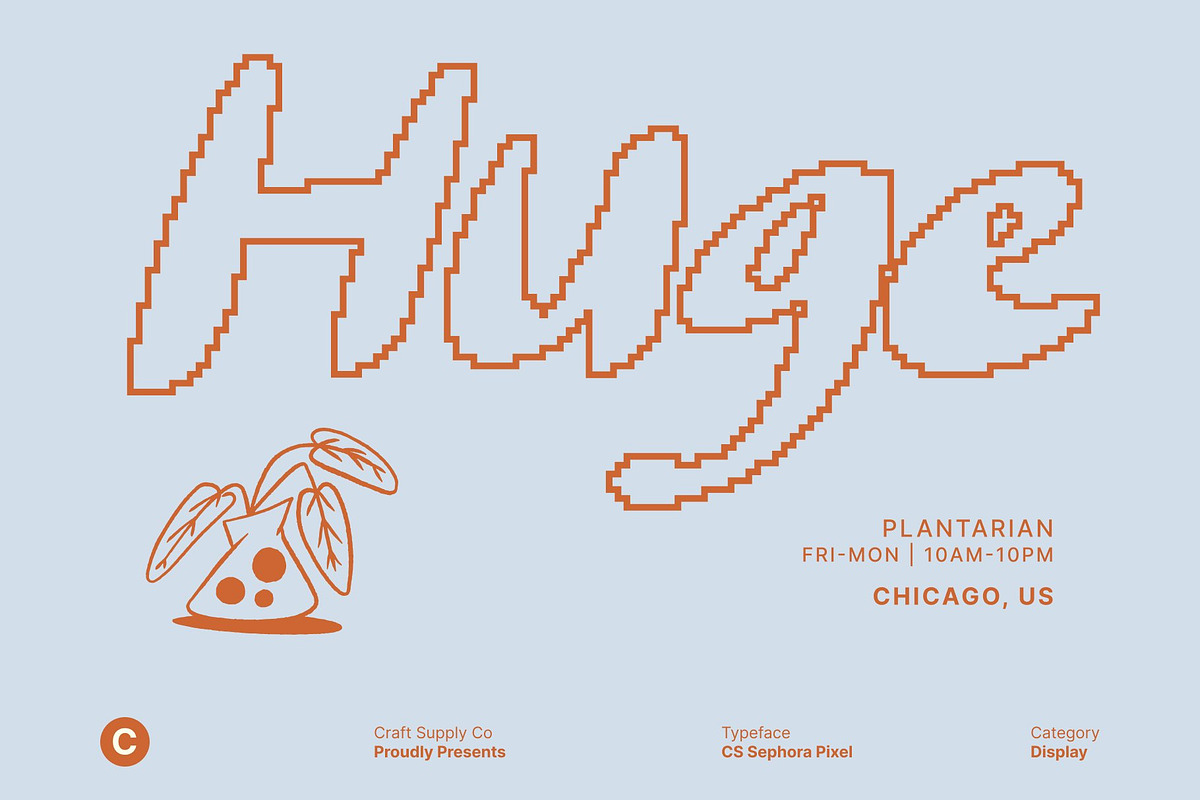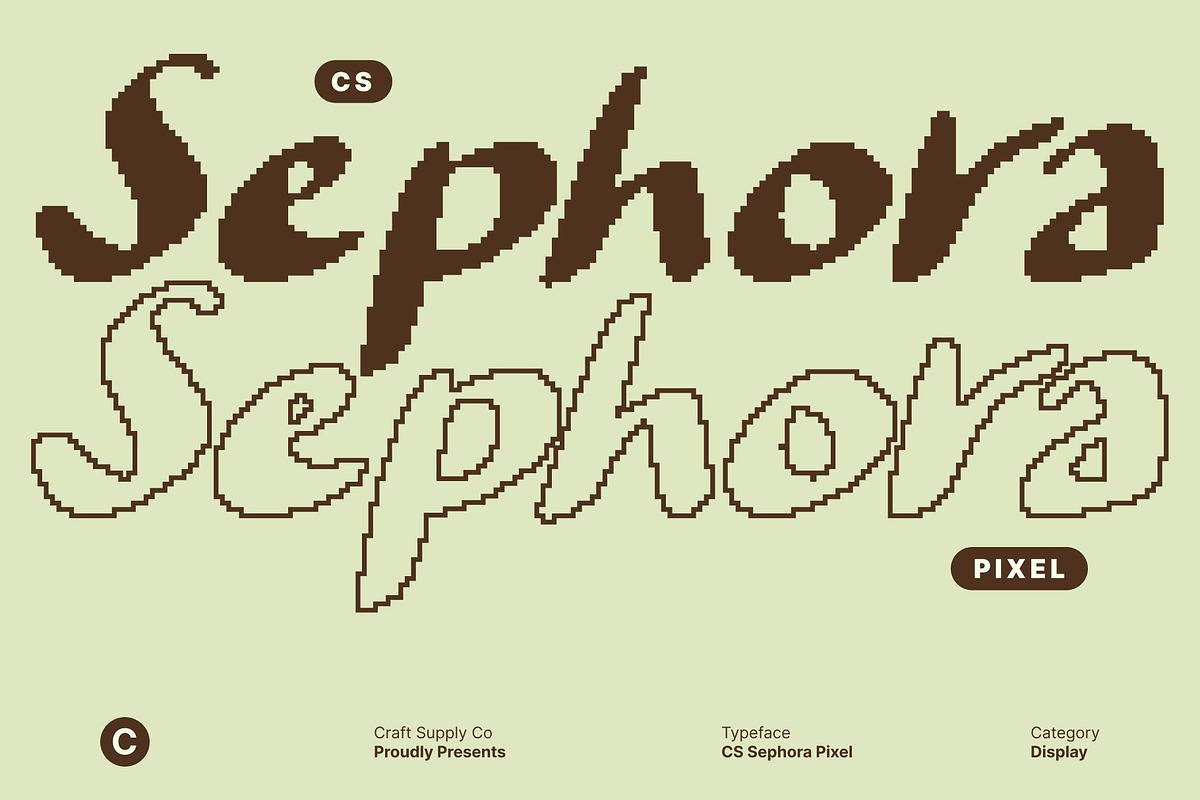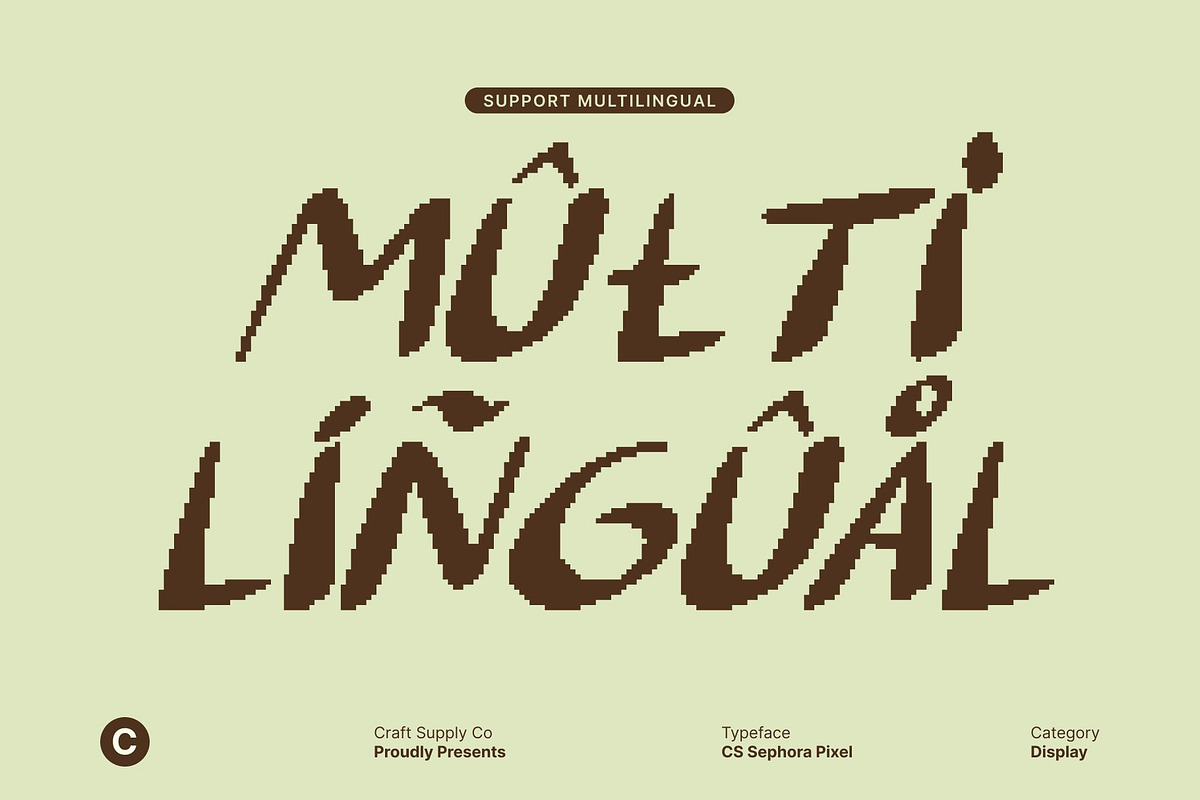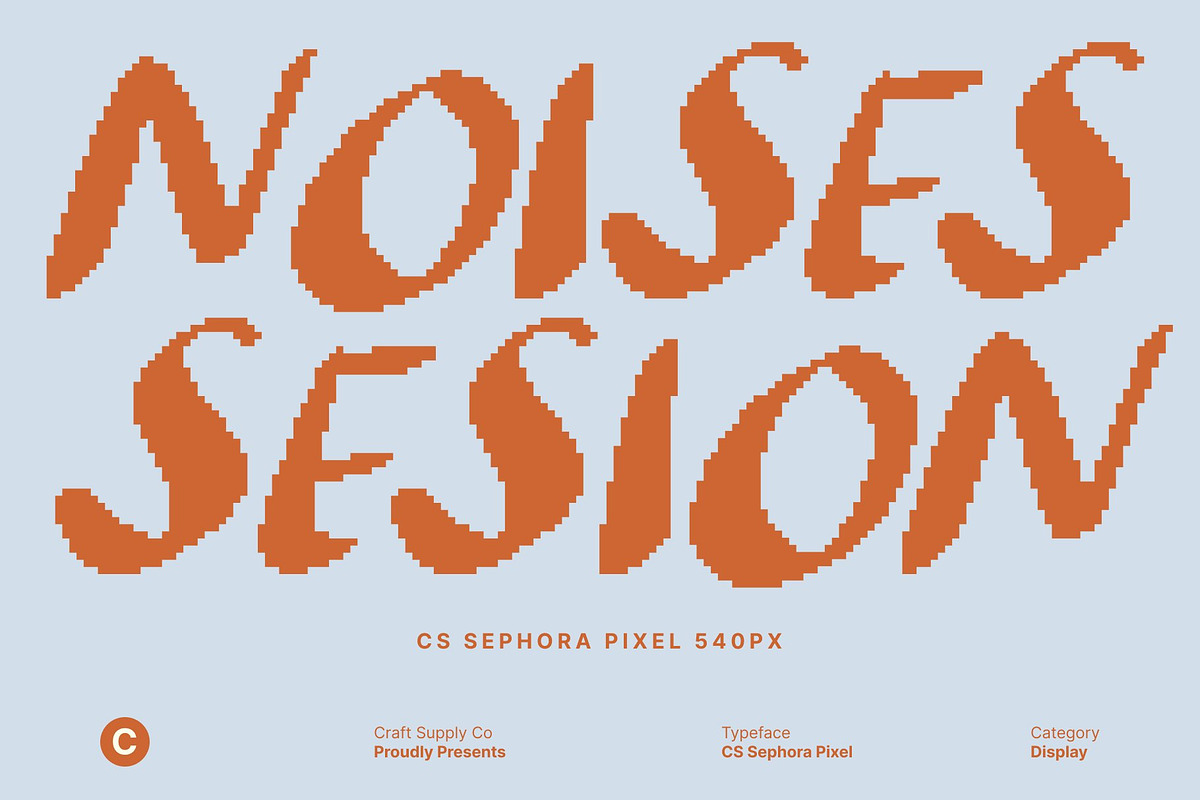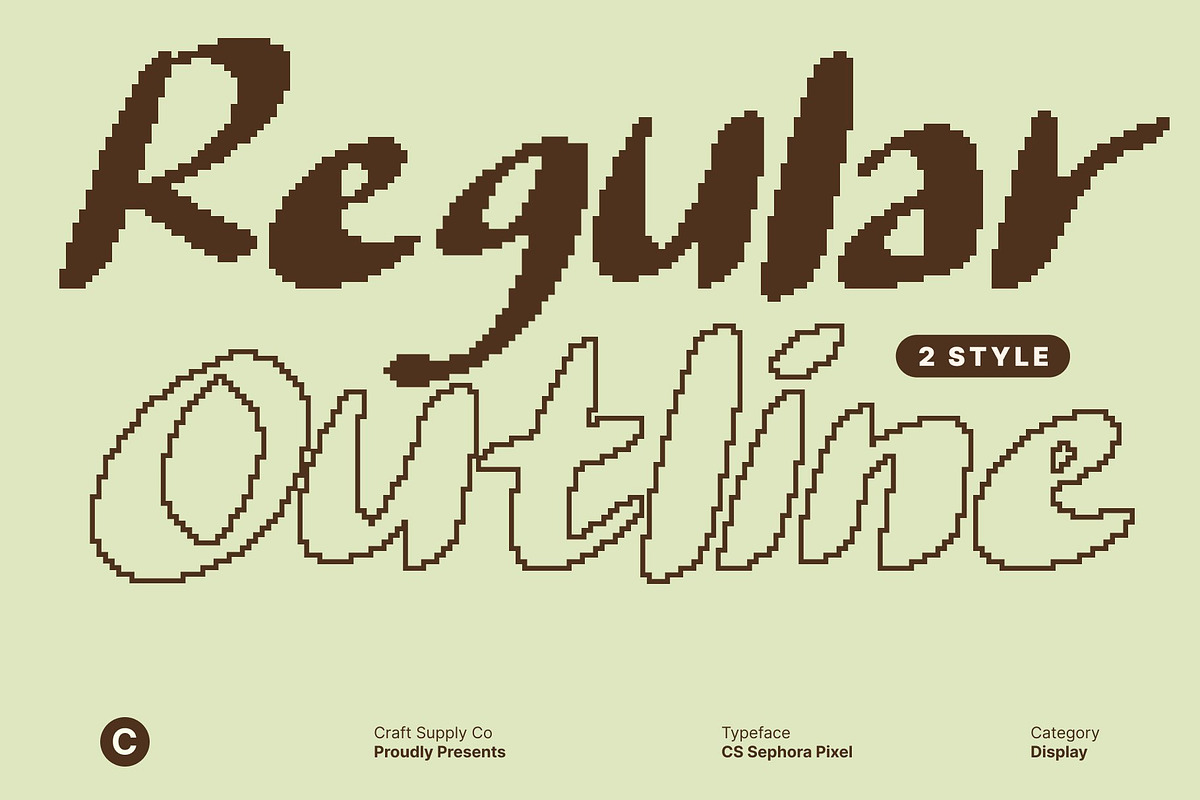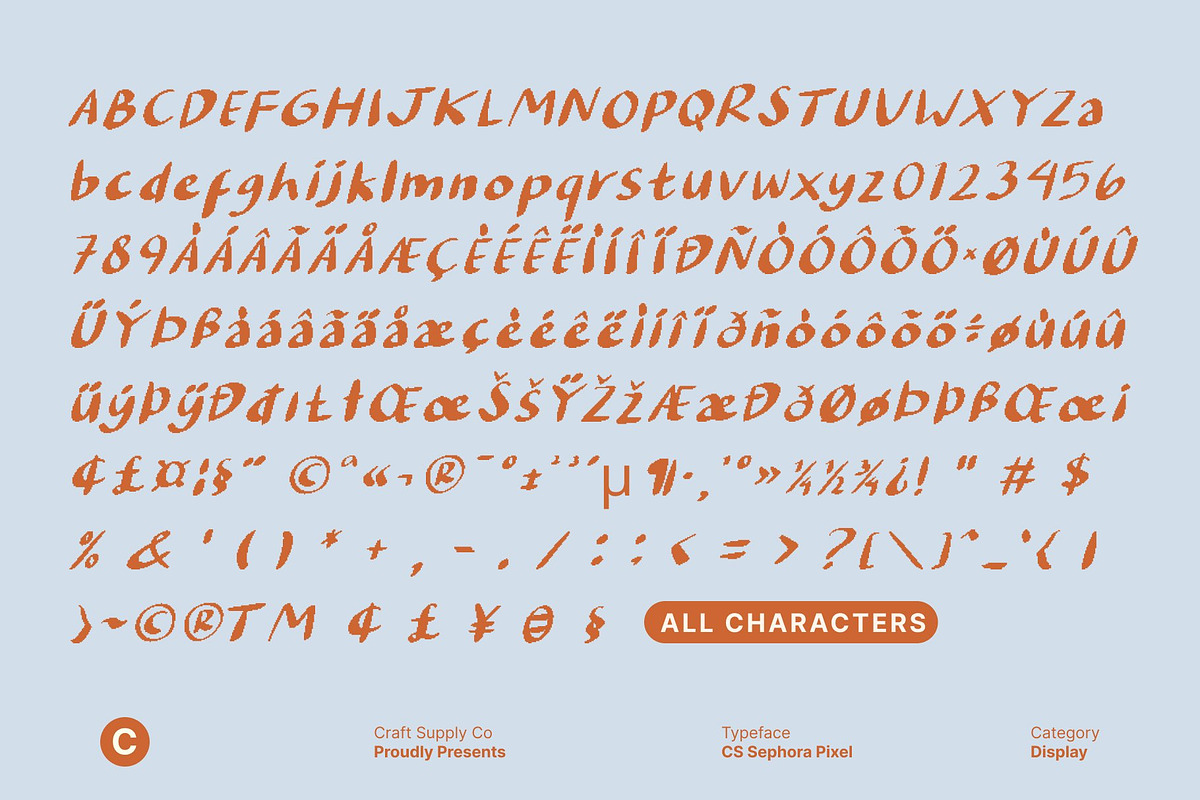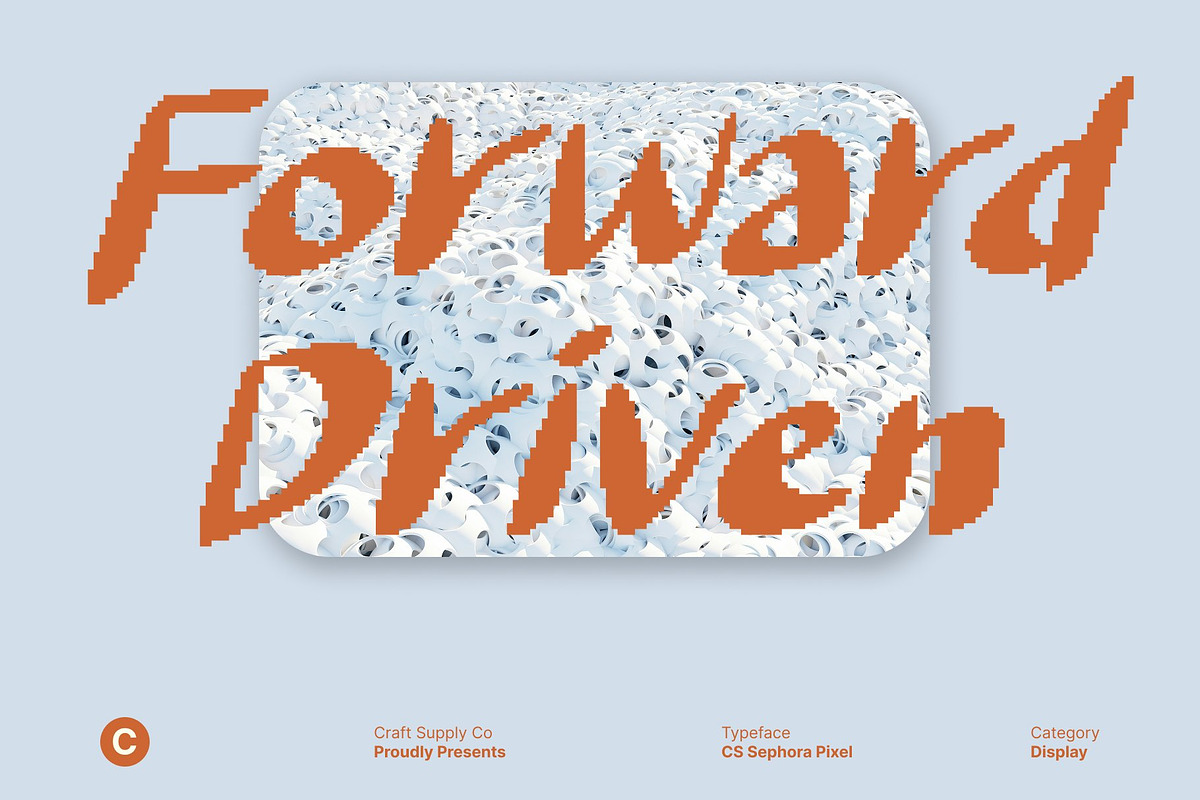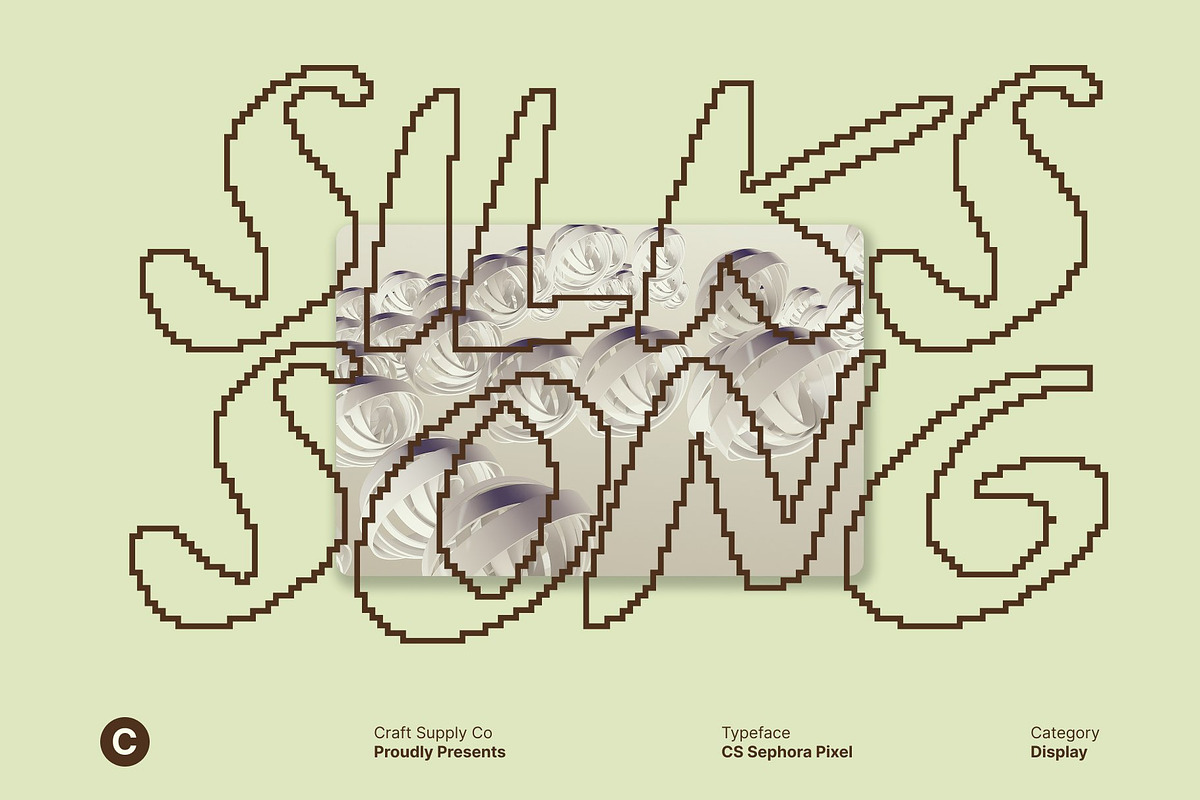
CS Sephora Pixel
CS Sephora Pixel – Bold Marker Energy in Retro Digital Form
Handcrafted Marker Style Meets Pixel Precision This transforms expressive handwritten marker strokes into a bold pixel-based design. Combining the freedom of natural handwriting with the structure of a pixel grid, this font delivers dynamic rhythm while embracing a nostalgic digital aesthetic. Each letter feels handcrafted yet intentionally blocky, merging human warmth with retro screen clarity.
Bold, Playful, and Confident Character The thick pixel strokes create a strong and assertive presence, while the handwritten inspiration keeps the font lively and approachable. This contrast between rigid digital squares and fluid marker energy gives the typeface a unique personality, perfect for designs that want to feel expressive, creative, and unmistakably eye-catching.
Textured Pixel Detail for Retro Impact Subtle pixel edges mimic the texture of early computer displays and classic 8-bit graphics, giving the font an old-technology charm. It feels like marker ink translated into a vintage digital screen, making it ideal for retro gaming visuals, indie branding, tech-inspired posters, and nostalgic digital campaigns.
Versatile for Modern and Retro Projects From bold headlines and logos to social media graphics and packaging, this font maintains readability while delivering strong visual impact. Its structured pixel foundation ensures clarity across digital platforms, while its expressive handwritten spirit keeps designs energetic and full of character.